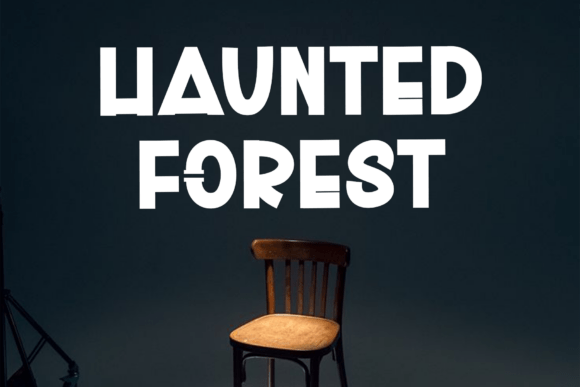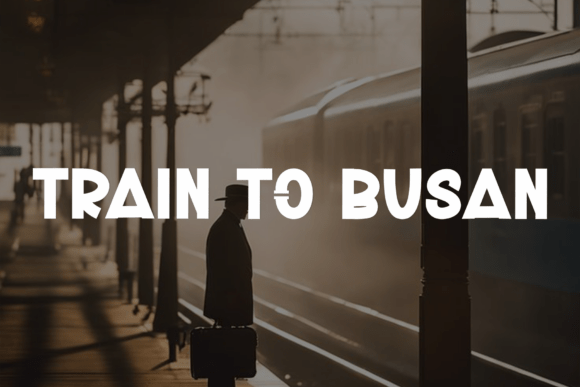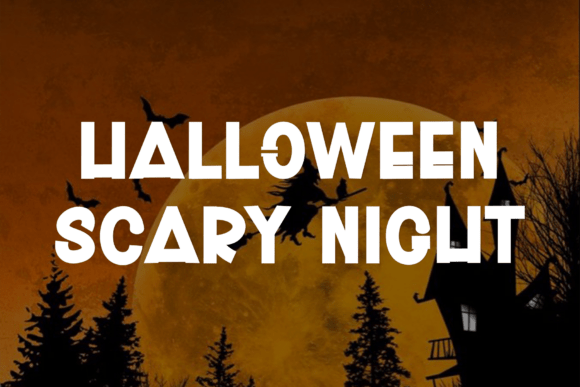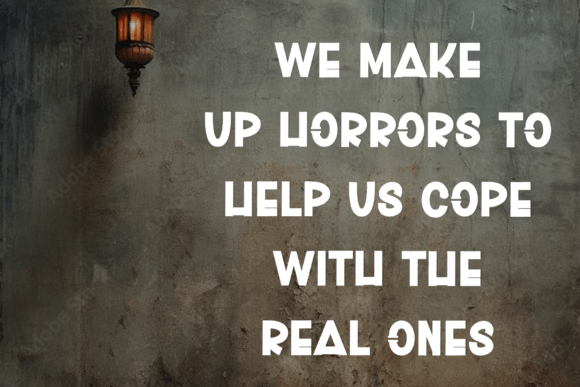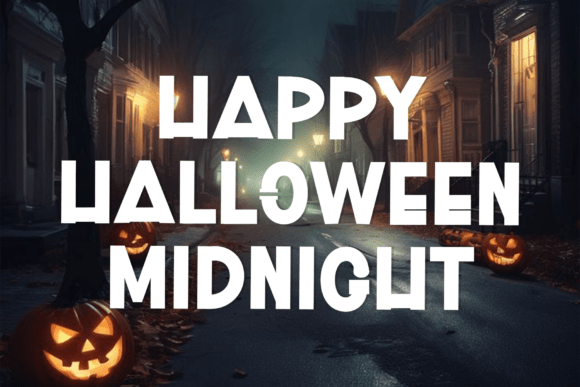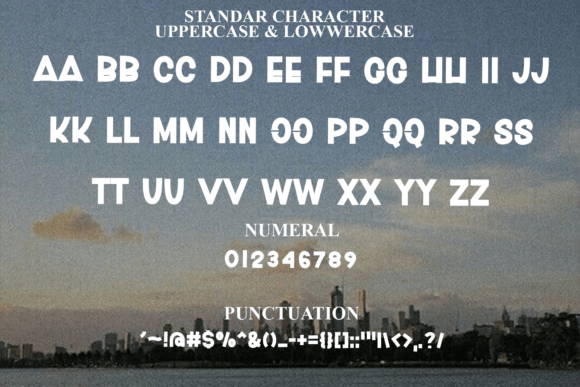
Unleash the Fear with Ghost Horror Font: A Chilling and Modern Horror Display Font
Are you looking for a font that can send shivers down the spine of your audience? Do you want to create a haunting atmosphere for your Halloween posters, thriller titles, haunted house branding, or spine-tingling invitations? Look no further than the Ghost Horror Font, a chilling and modern horror display font that is sure to leave a lasting impression.
What is Ghost Horror Font?
Ghost Horror Font is a unique and terrifying display font that features cut-through characters and an eerie, cinematic vibe. Its modern design makes it perfect for a variety of spooky and thrilling projects, from horror movie titles to haunted house signs. The font’s creepy and unsettling appearance is sure to grab the attention of your audience and leave them feeling uneasy.
Key Features of Ghost Horror Font
- Cut-through characters: The font’s characters have a cut-through design that gives them a 3D appearance, adding to the overall eerie and cinematic vibe.
- Eerie and cinematic vibe: The font’s design is inspired by horror movies and haunted houses, making it perfect for creating a spooky atmosphere.
- Modern horror display font: Ghost Horror Font is a modern take on traditional horror fonts, making it perfect for designers and crafters looking for a unique and terrifying font.
- High-quality design: The font is designed with high-quality graphics, making it perfect for use in a variety of projects, from posters to invitations.
Uses for Ghost Horror Font
Ghost Horror Font is a versatile font that can be used in a variety of projects, including:
- Halloween posters: Create eye-catching and terrifying posters for Halloween events or parties.
- Thriller titles: Use the font to create attention-grabbing titles for horror movies, books, or video games.
- Haunted house branding: Create a spooky and eerie atmosphere for haunted houses or haunted attractions.
- Spine-tingling invitations: Use the font to create creepy and unsettling invitations for Halloween parties or horror-themed events.
Why Choose Ghost Horror Font?
There are many horror fonts available, but Ghost Horror Font stands out from the rest due to its unique and terrifying design. Here are a few reasons why you should choose Ghost Horror Font:
- Unique design: The font’s cut-through characters and eerie vibe make it a one-of-a-kind font that will grab the attention of your audience.
- High-quality graphics: The font is designed with high-quality graphics, making it perfect for use in a variety of projects.
- Versatile: The font can be used in a variety of projects, from posters to invitations.
Tips for Using Ghost Horror Font
Here are a few tips for using Ghost Horror Font:
- Use it sparingly: The font is bold and attention-grabbing, so use it sparingly to avoid overwhelming your audience.
- Pair it with other fonts: Pair the font with other fonts to create a unique and eye-catching design.
- Experiment with colors: Experiment with different colors to create a spooky and eerie atmosphere.
- Have fun: Most importantly, have fun with the font and get creative!